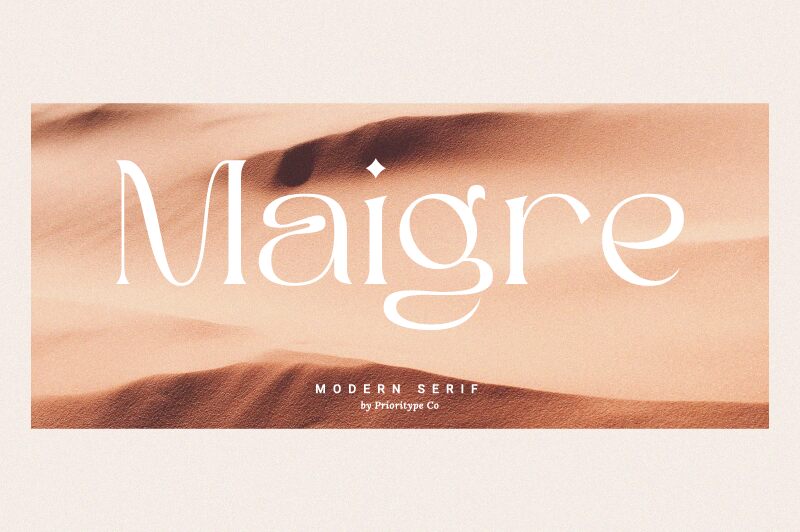
Maigre, the modern serif semi-light font by Prioritype Co, is a sophisticated and elegant choice for any design project. With its semi-expanded width and clean lines, Maigre is perfect for body text in editorial layouts or branding materials. The semi-light weight lends itself to a refined look that works well in high-end fashion or beauty campaigns, while the modern serif style adds an element of approachability to any project. Whether designing a website, creating marketing materials, or crafting an annual report, Maigre's unique blend of classic and contemporary design elements makes it a versatile option for designers looking to make an impact.